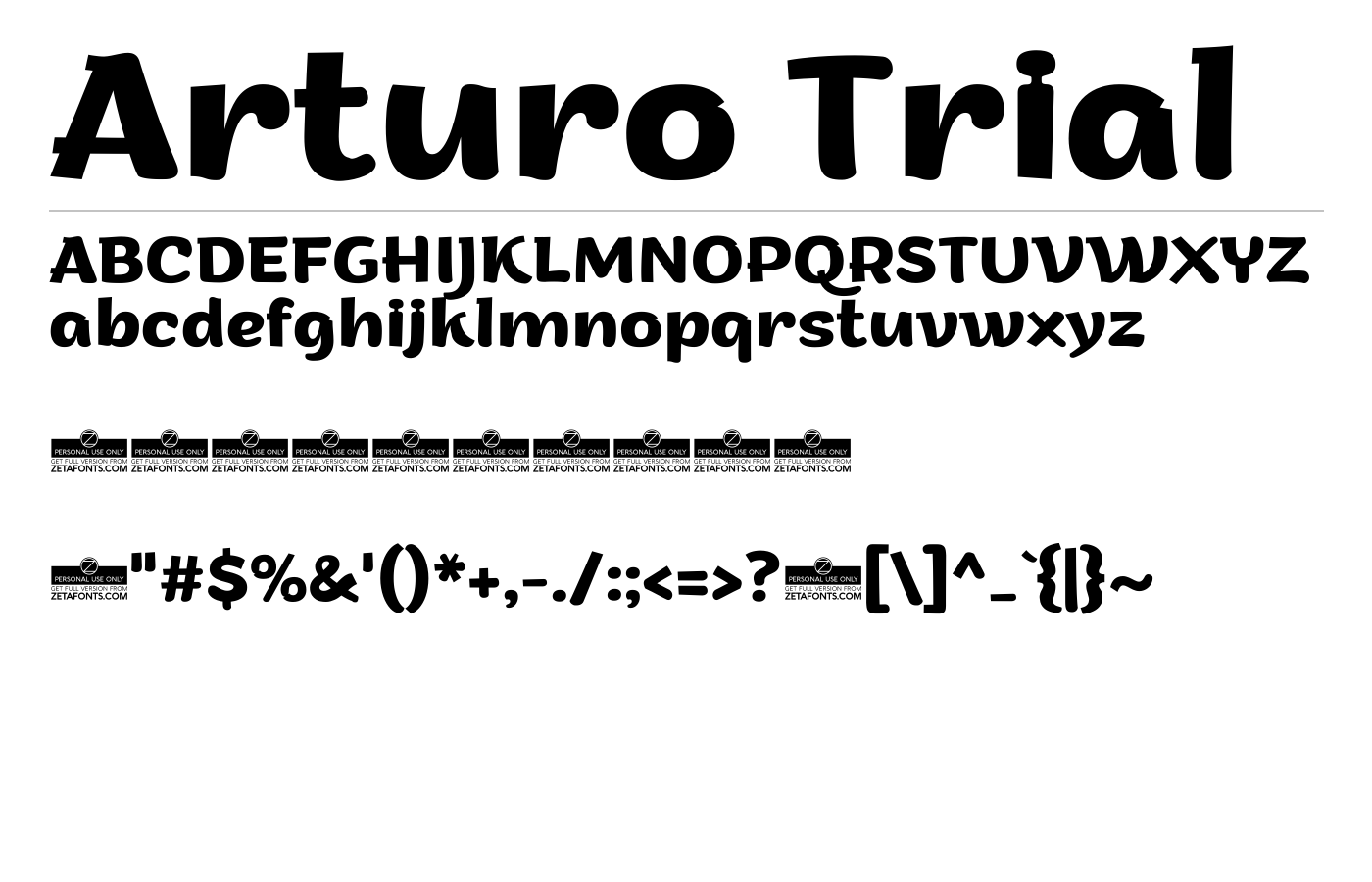
Arturo Trial is a playful and bold serif font with a friendly, slightly irregular style that adds charm and personality to its letterforms. Its medium weight, moderate contrast, and quirky details make it well-suited for eye-catching headlines, logos, and creative projects that want to convey warmth and approachability. This font works best for branding and editorial uses where a fun yet confident tone is desired.
Arturo Trial Font
About Arturo Trial Font
| Font family | Arturo Trial Font |
| Designer | Francesco Canovaro |